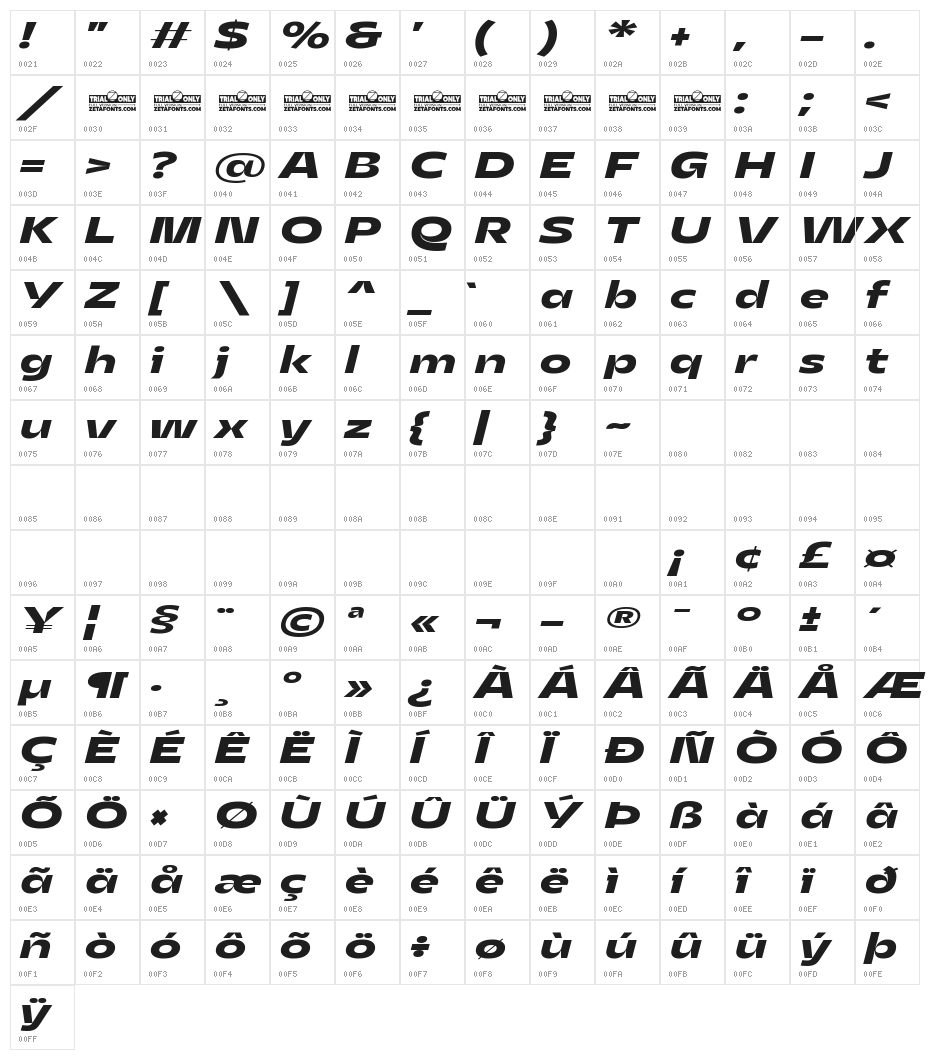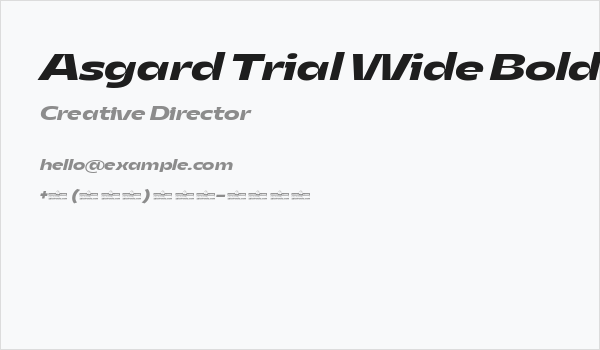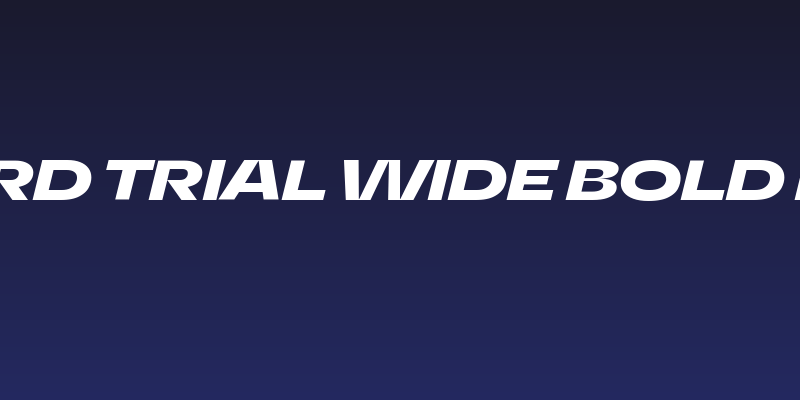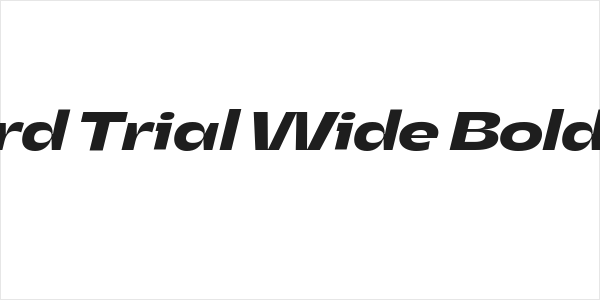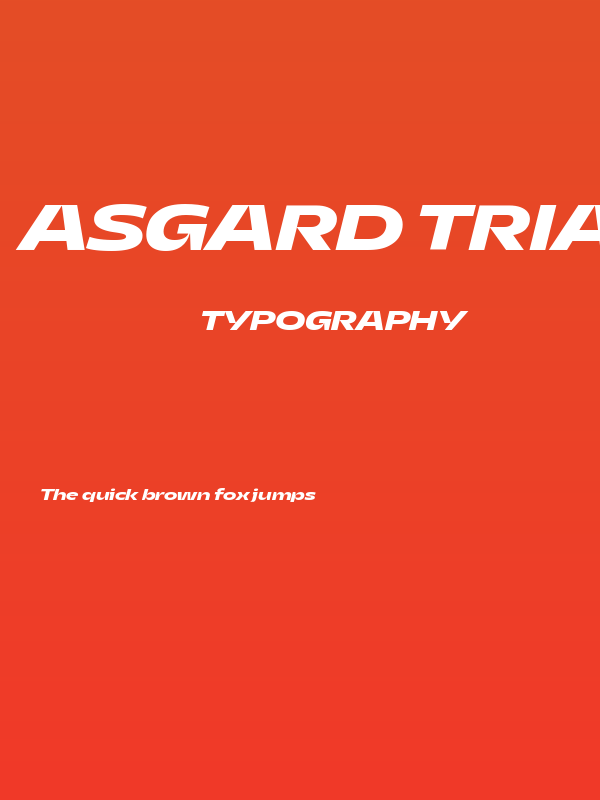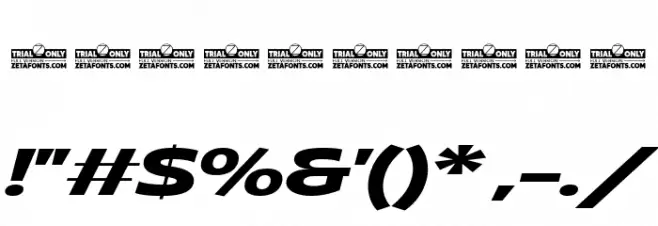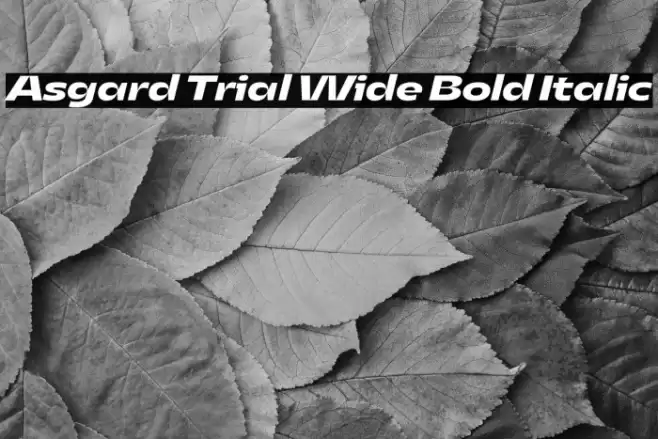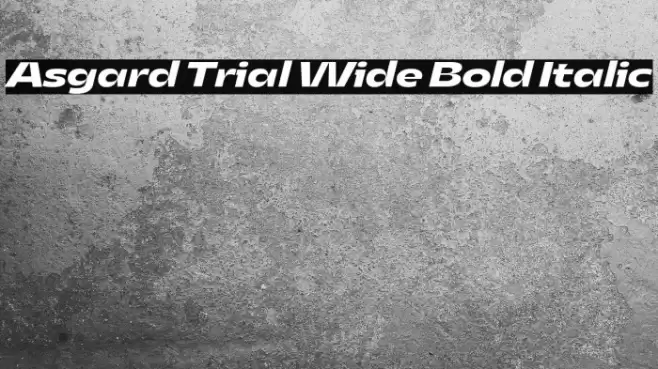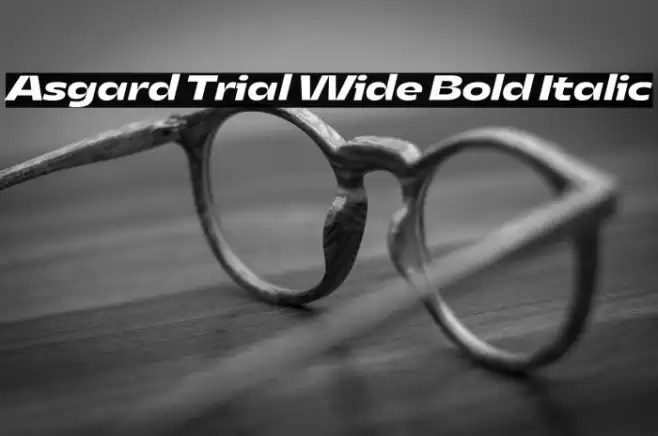
Asgard Trial Wide Bold Italic Font
Asgard Trial Wide Bold Italic Description
This font features a bold and italicized style with a wide stance, giving it a strong and dynamic appearance. The uppercase letters are particularly striking, with sharp angles and a forward-leaning posture that suggests movement and energy. The lowercase letters maintain this boldness while offering a slightly softer edge, making them versatile for various design contexts. The numerals and special characters are consistent with the overall bold and italicized theme, ensuring uniformity across all text elements. This font's modern aesthetic is enhanced by its clean lines and lack of serifs, making it suitable for contemporary design projects.
| Use Case | Headlines, Logos, Branding |
| Proposed Projects | Ideal for branding, advertising, and headlines where a strong, modern impression is desired. |